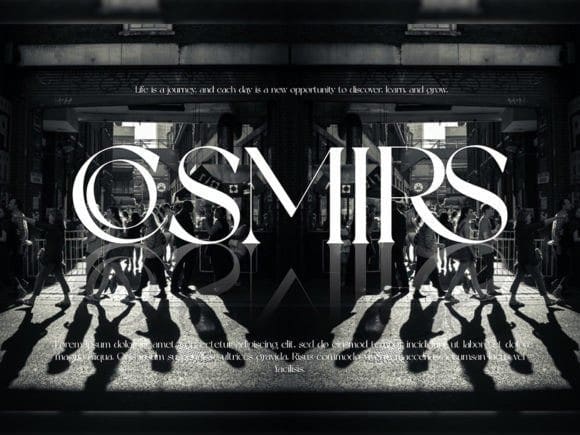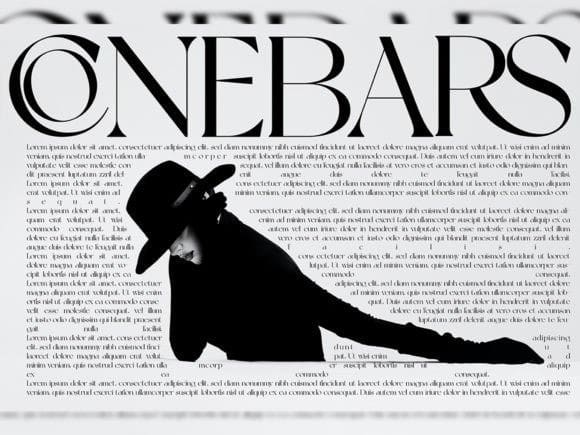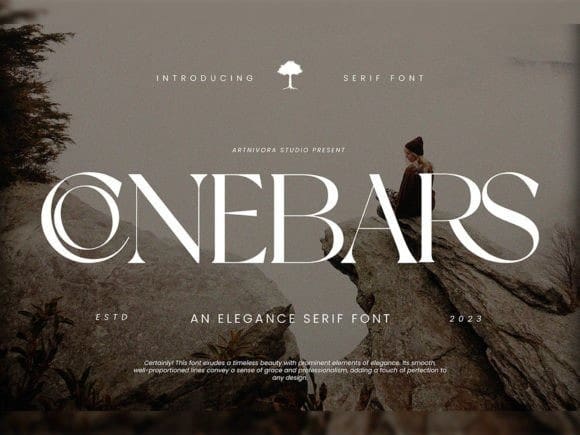
Conebars Font
Conebars Font, a simple and elegance serif font. So perfect for you who needs a typeface for logo designs, magazine, social media, brochure, and many more.